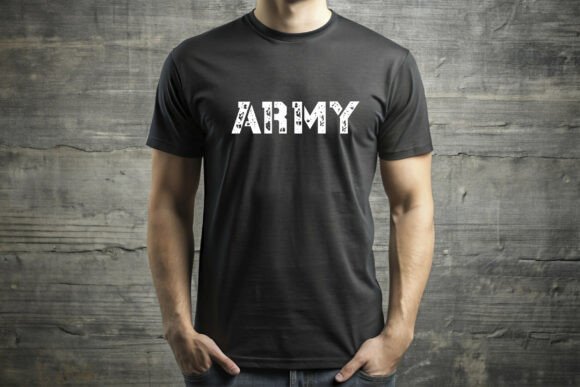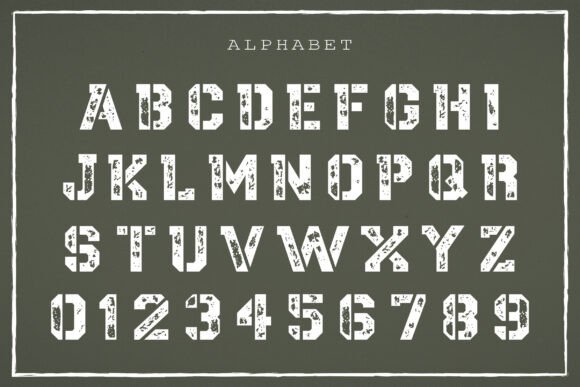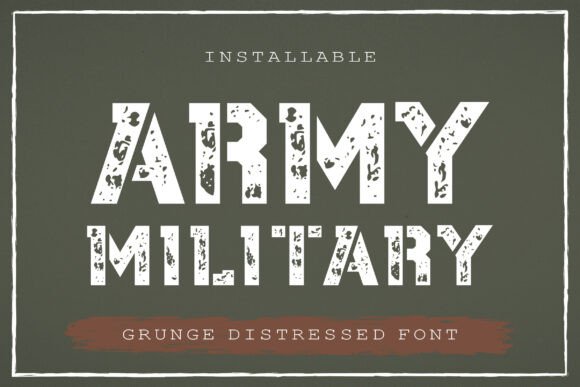
Deploy a Rugged Aesthetic with Army Military Font
Are you looking for a typeface that exudes strength, resilience, and a battle-hardened attitude? Look no further than the Army Military font, a powerhouse stencil typeface that captures the essence of a rugged, industrial aesthetic. With its massive, blocky letterforms, rhythmic stencil cuts, and heavily distressed texture, this font is perfect for designers and crafters seeking to create bold, high-impact visual identities.
The Characteristics of Army Military Font
The Army Military font features a unique combination of characteristics that set it apart from other typefaces. Its massive, blocky letterforms are reminiscent of industrial signage and weathered field equipment, while its rhythmic, industrial stencil cuts add a sense of texture and depth. The font’s heavily distressed “grunge” texture gives it a worn, battle-hardened look that’s perfect for creating gritty, high-impact visual identities.
Perfect for Tactical Gear Branding and Historical Documentaries
The Army Military font is the premier choice for independent tactical gear branding, historical documentary titles, and fitness bootcamp identities. Its heavy structural weight and authoritative personality make it perfect for creating bold, attention-grabbing headlines and titles. Whether you’re designing a logo for a tactical gear company or creating titles for a historical documentary, this font is sure to make a lasting impression.
Adding a Touch of Grit and Gallantry to Social Media Headers
In addition to its use in branding and documentary titles, the Army Military font is also perfect for creating high-impact social media headers. Its rugged, industrial aesthetic adds a touch of grit and gallantry to any social media post, making it perfect for fitness enthusiasts, outdoor enthusiasts, and anyone looking to add a bit of edge to their online presence.
Key Features of Army Military Font
- Massive, blocky letterforms: Create a bold, industrial aesthetic with the font’s massive, blocky letterforms.
- Rhythmic, industrial stencil cuts: Add texture and depth to your designs with the font’s rhythmic, industrial stencil cuts.
- Heavily distressed “grunge” texture: Give your designs a worn, battle-hardened look with the font’s heavily distressed texture.
- Heavy structural weight: Create bold, attention-grabbing headlines and titles with the font’s heavy structural weight.
- Authoritative personality: Convey strength and resilience with the font’s authoritative personality.
Design and Crafting Applications
The Army Military font has a wide range of design and crafting applications, including:
- Tactical gear branding: Create bold, high-impact logos for tactical gear companies.
- Historical documentaries: Create titles and headlines for historical documentaries that exude strength and resilience.
- Fitness bootcamp identities: Create bold, attention-grabbing logos and branding for fitness bootcamps.
- Social media headers: Add a touch of grit and gallantry to your social media posts with the Army Military font.
- Outdoor gear branding: Create bold, high-impact logos for outdoor gear companies.
- Apparel design: Create bold, eye-catching apparel designs with the Army Military font.
In conclusion, the Army Military font is a powerful, versatile typeface that’s perfect for designers and crafters seeking to create bold, high-impact visual identities. With its massive, blocky letterforms, rhythmic stencil cuts, and heavily distressed texture, this font is sure to make a lasting impression. Whether you’re designing a logo for a tactical gear company or creating titles for a historical documentary, the Army Military font is the premier choice for adding a touch of grit and gallantry to your designs.